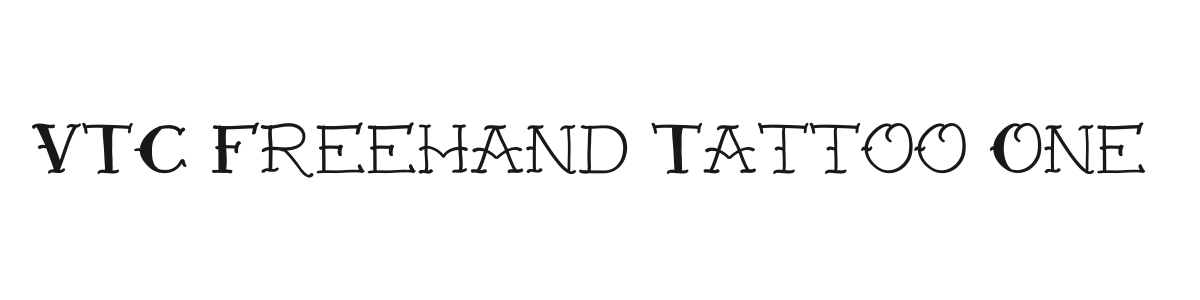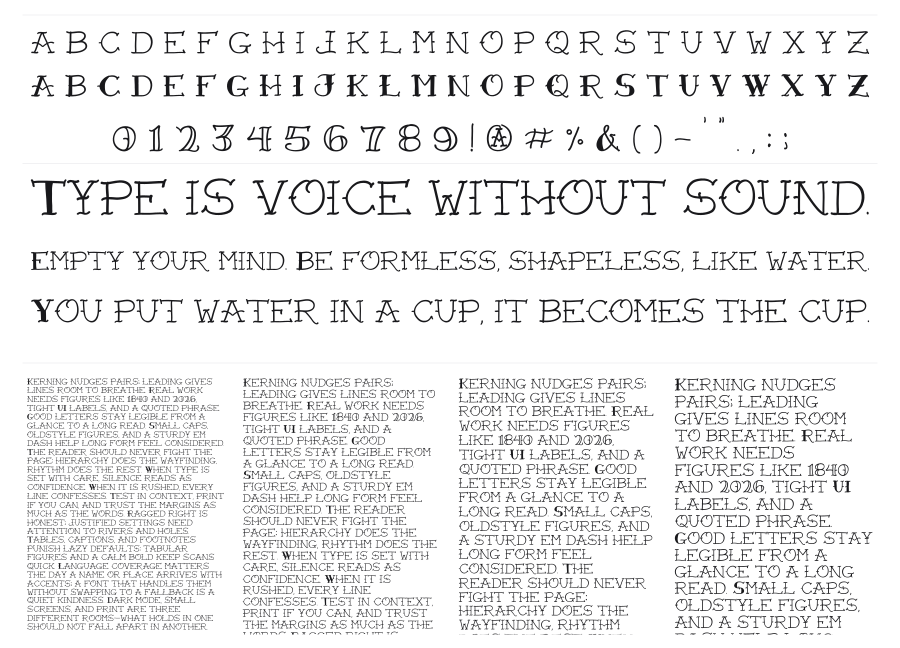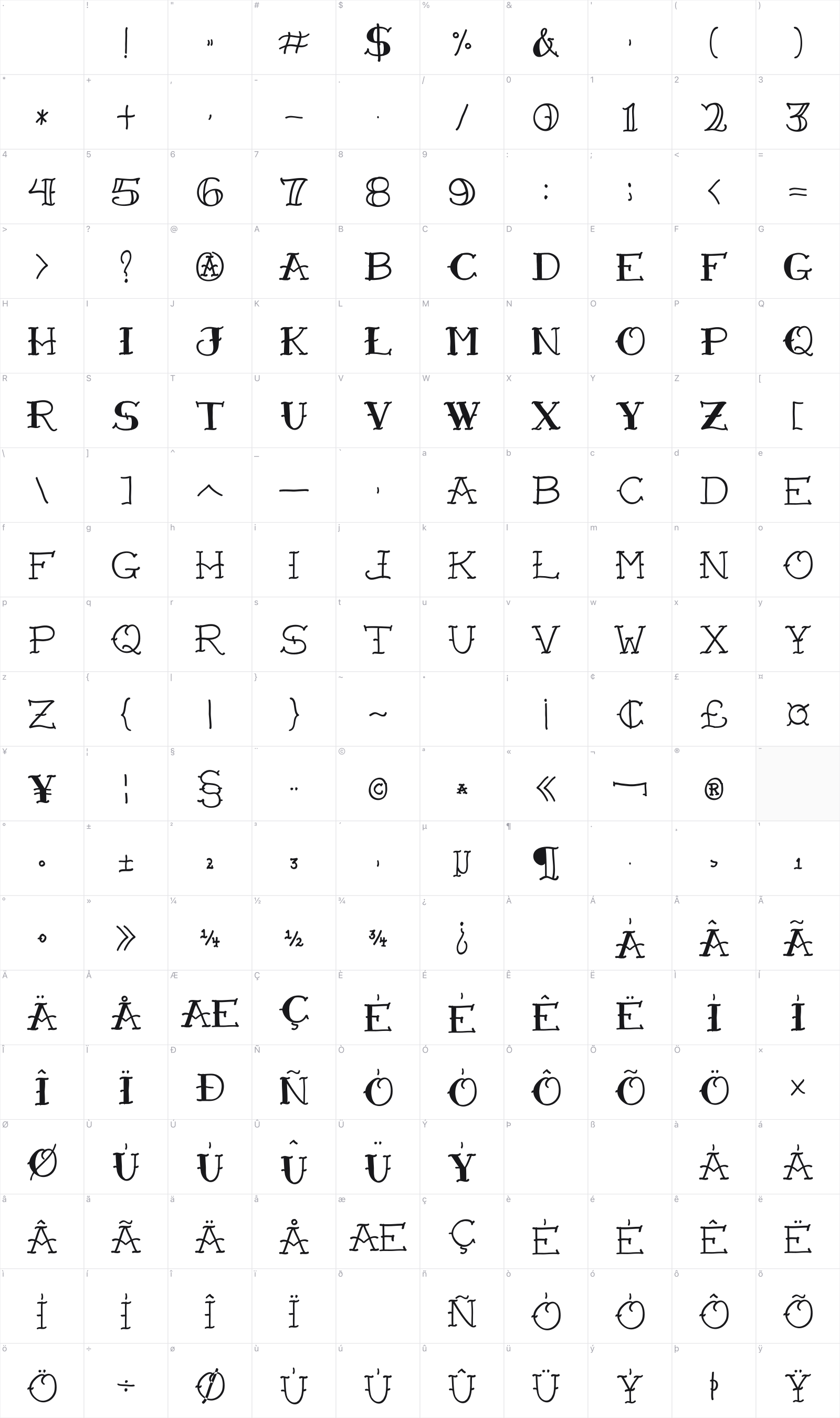
VTC Freehand Tattoo One
VTC Freehand Tattoo One is a thin decorative serif with the look of hand-lettered tattoo flash and vintage American folk type. The spindly strokes, ornamental spurs, and subtly uneven spacing give it an unmistakably handmade quality that no clean digital font can fake. It works best at large sizes where its raw, scratchy character can breathe.